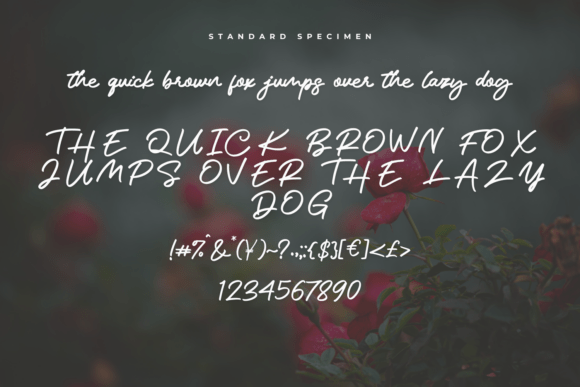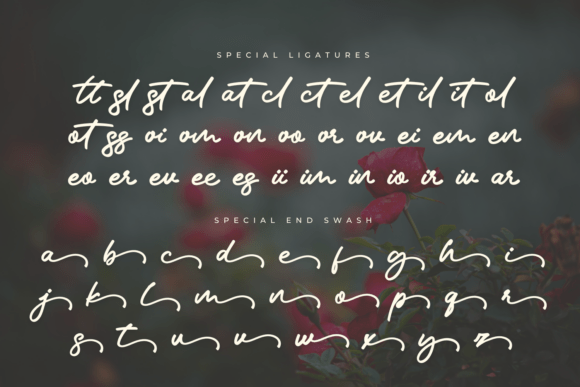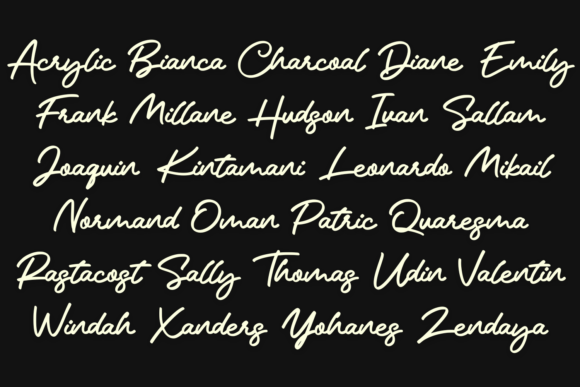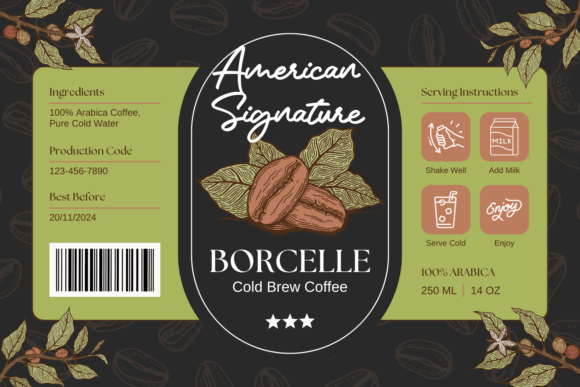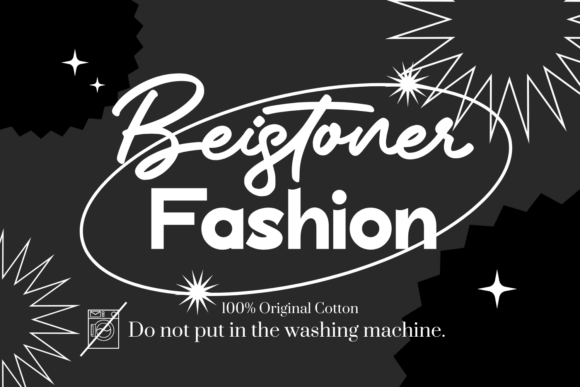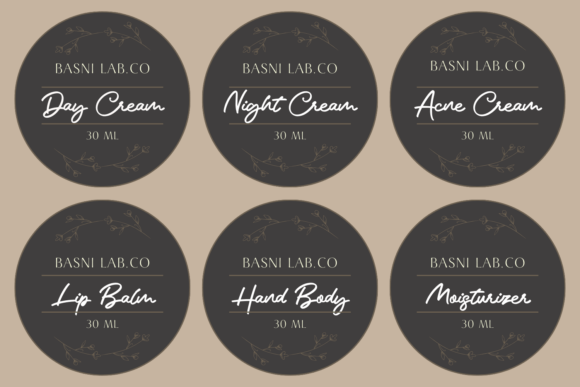
Introduction to Marstina Font
✨ Introducing Marstina Handwritten Font – A Love Story in Every Stroke.
✨ Looking for the perfect font to add a touch of romance, elegance, and charm to your designs Meet Marstina Handwritten Font, a beautifully crafted Handwritten Font that flows effortlessly like a handwritten love letter.
Key Features of Marstina Font
Why Choose Marstina Font?
Marstina Font offers exceptional quality and versatility, making it a valuable addition to your design toolkit. Whether you’re creating for personal projects or commercial use, Marstina Font delivers professional results.